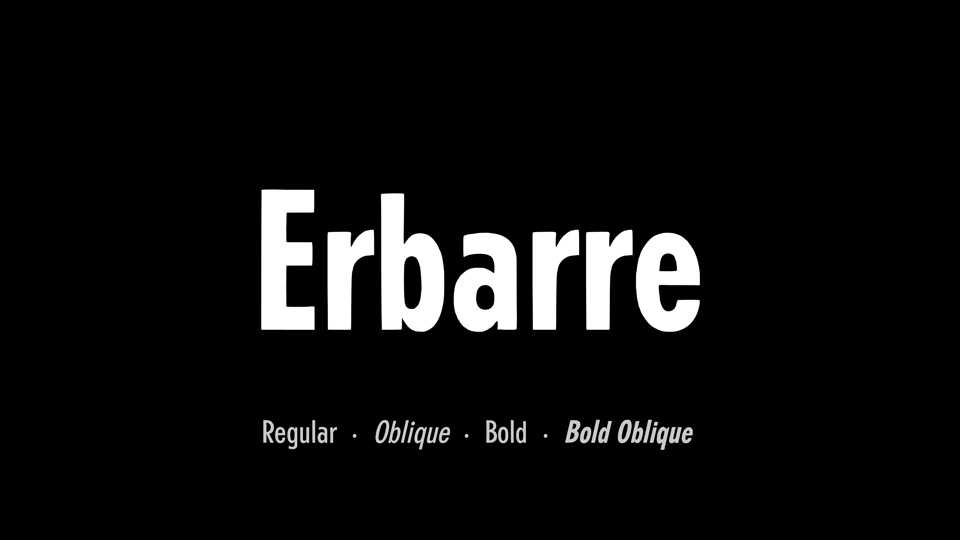
Download Erbarre typeface, a sans serif font family in two weights with Obliques. Erbarre is a redrawing of the classic Erbar font, first geometric sans serif typeface ever created, in 1922 by designer Jakob Erbar.